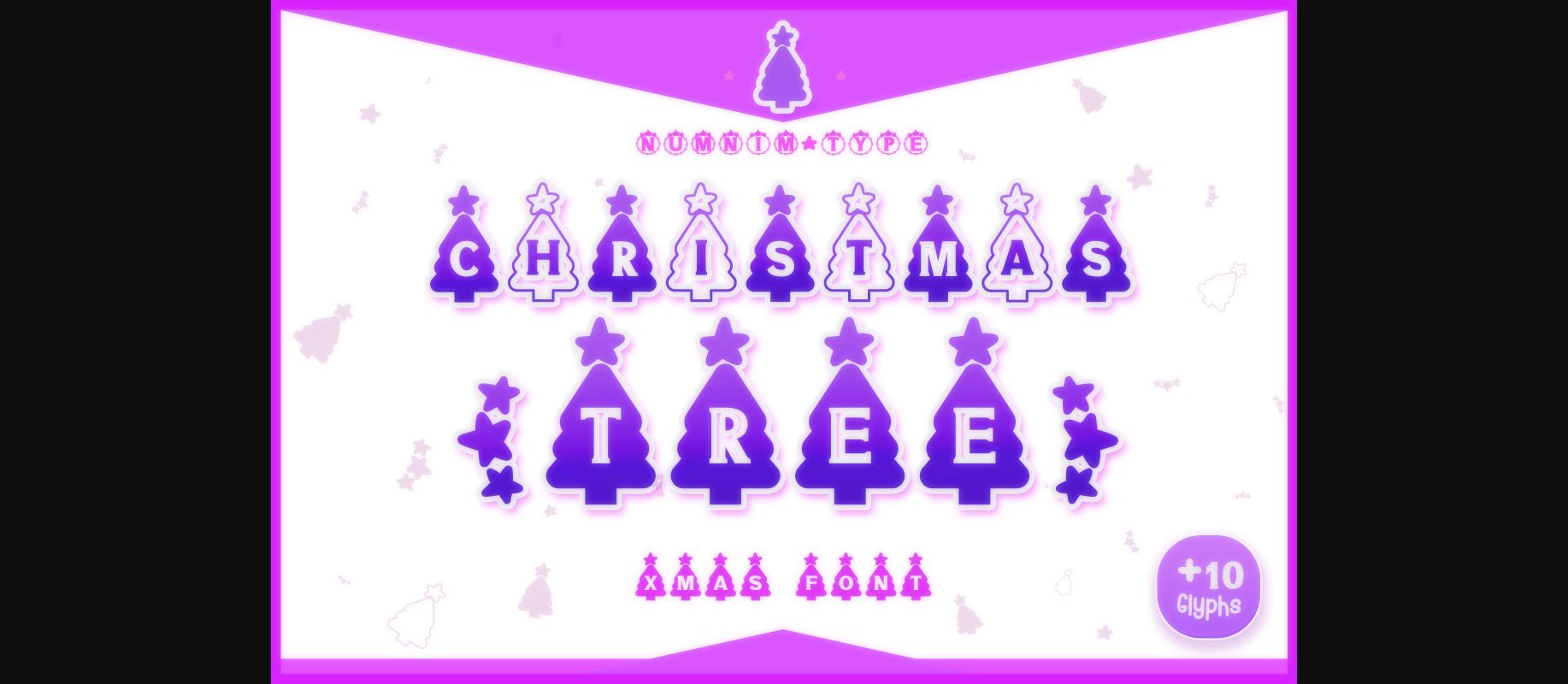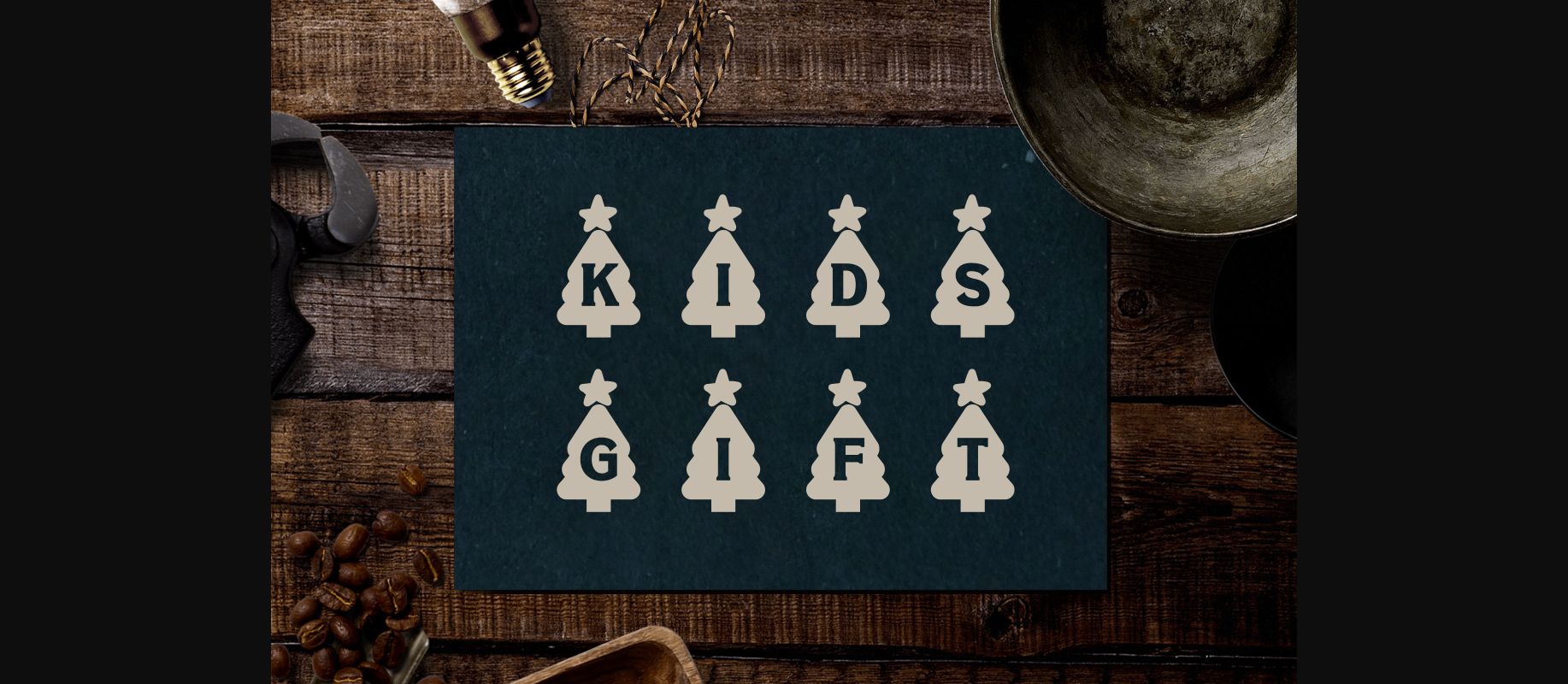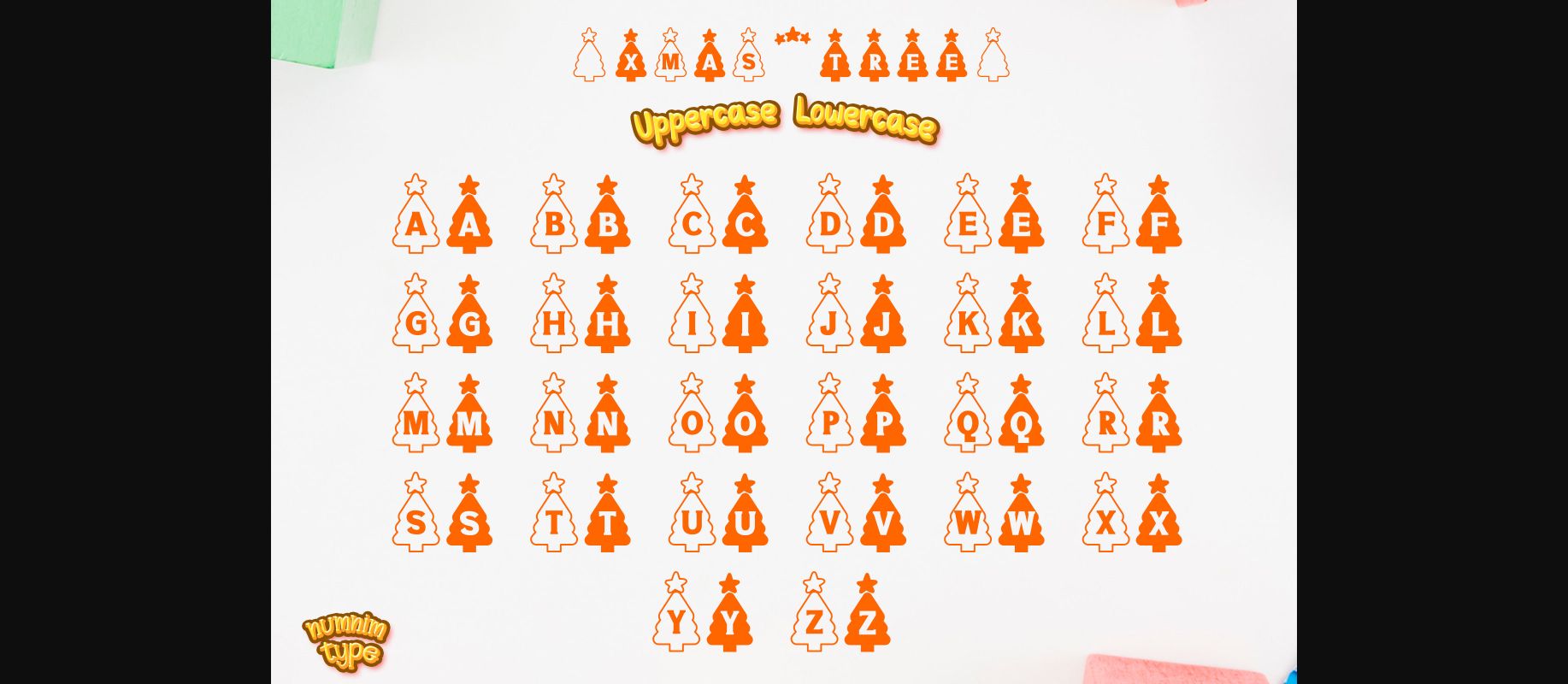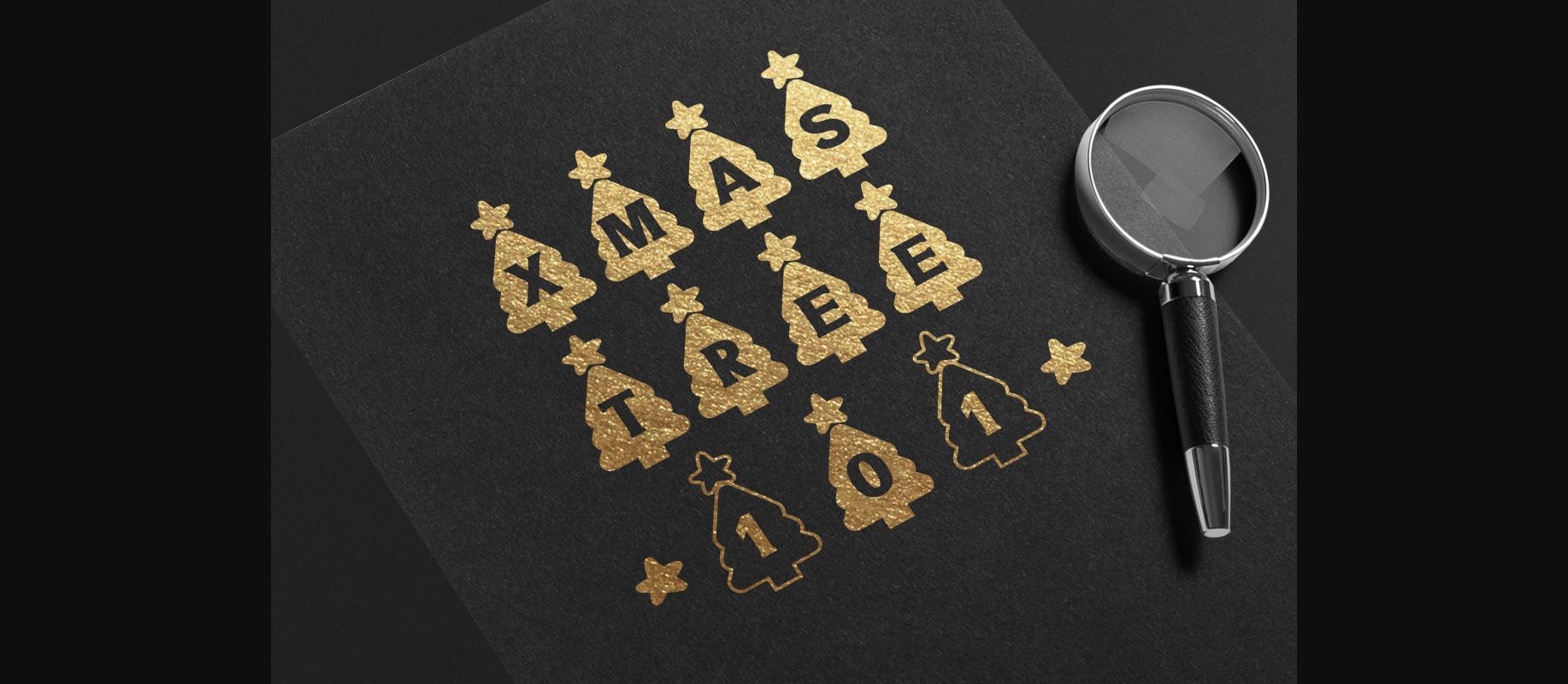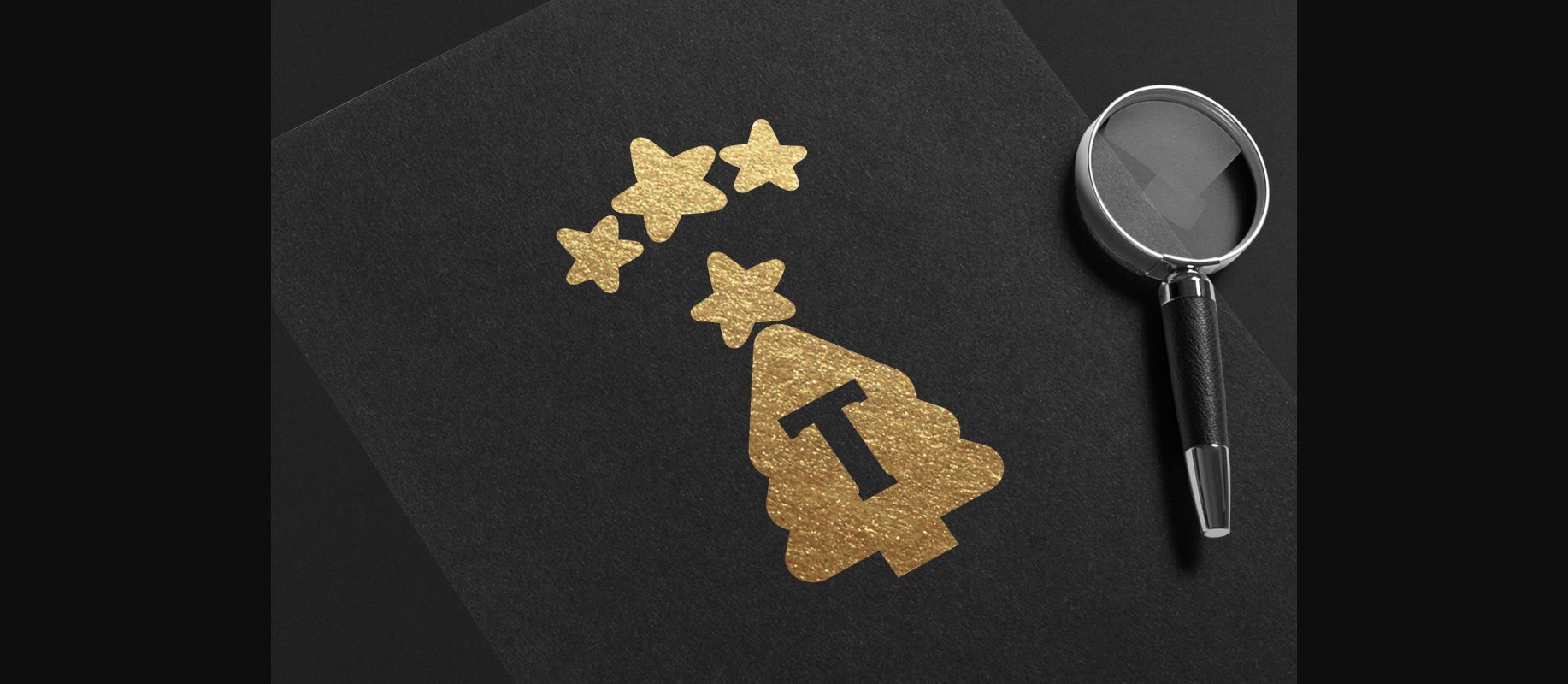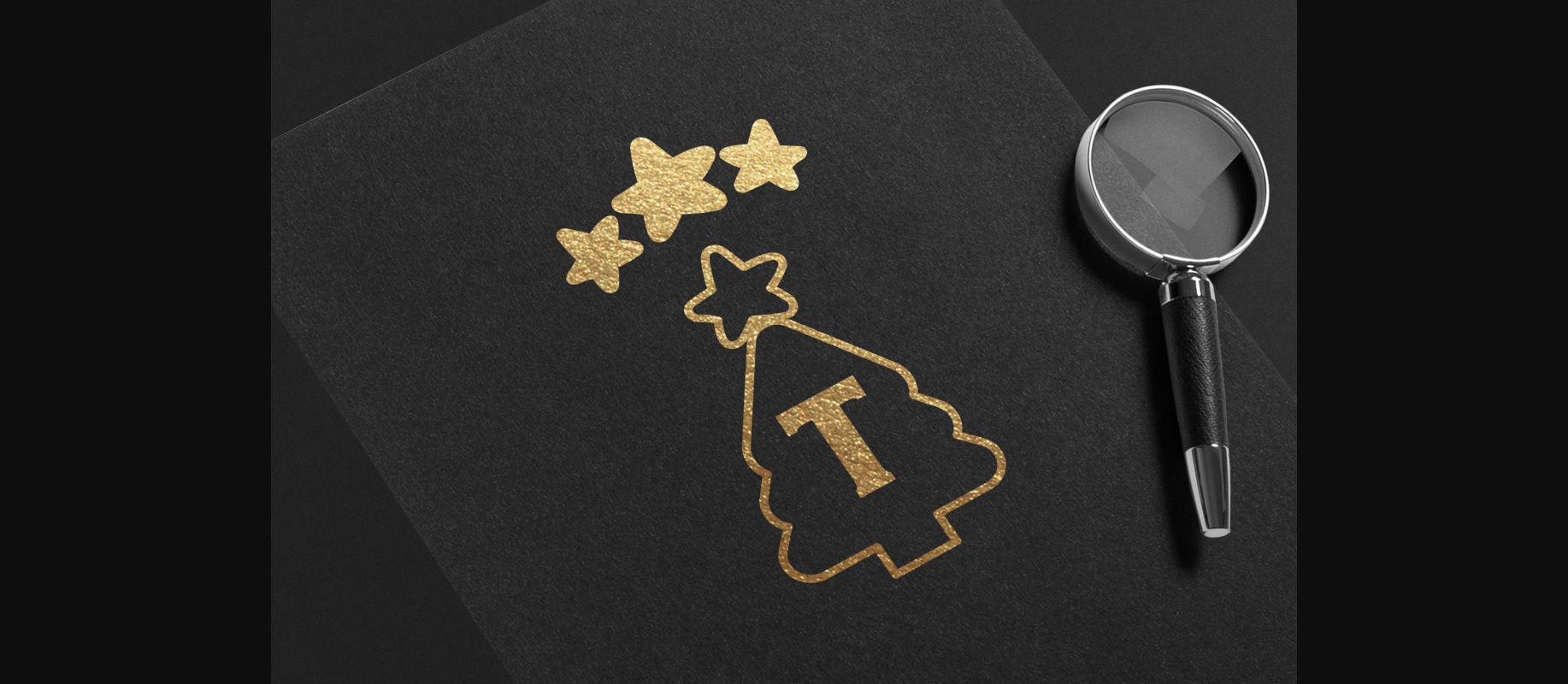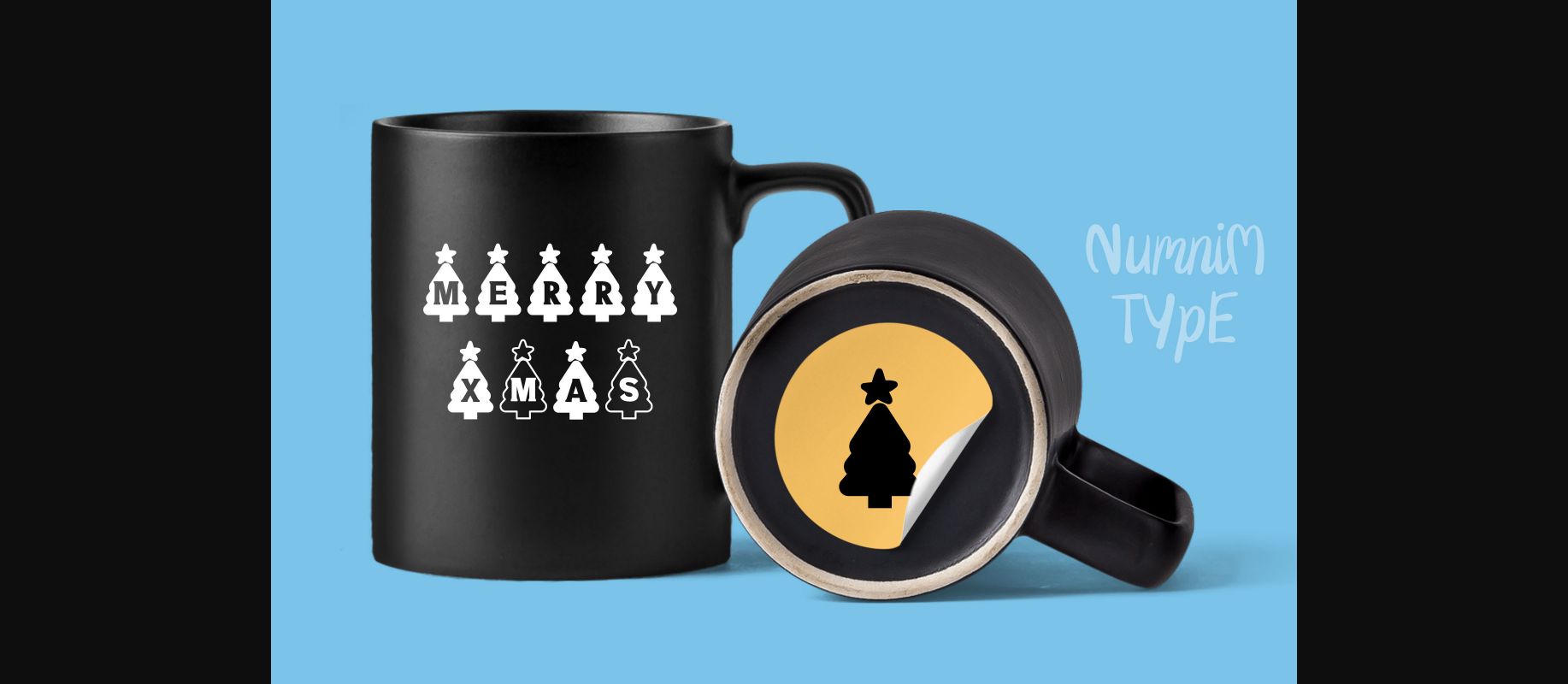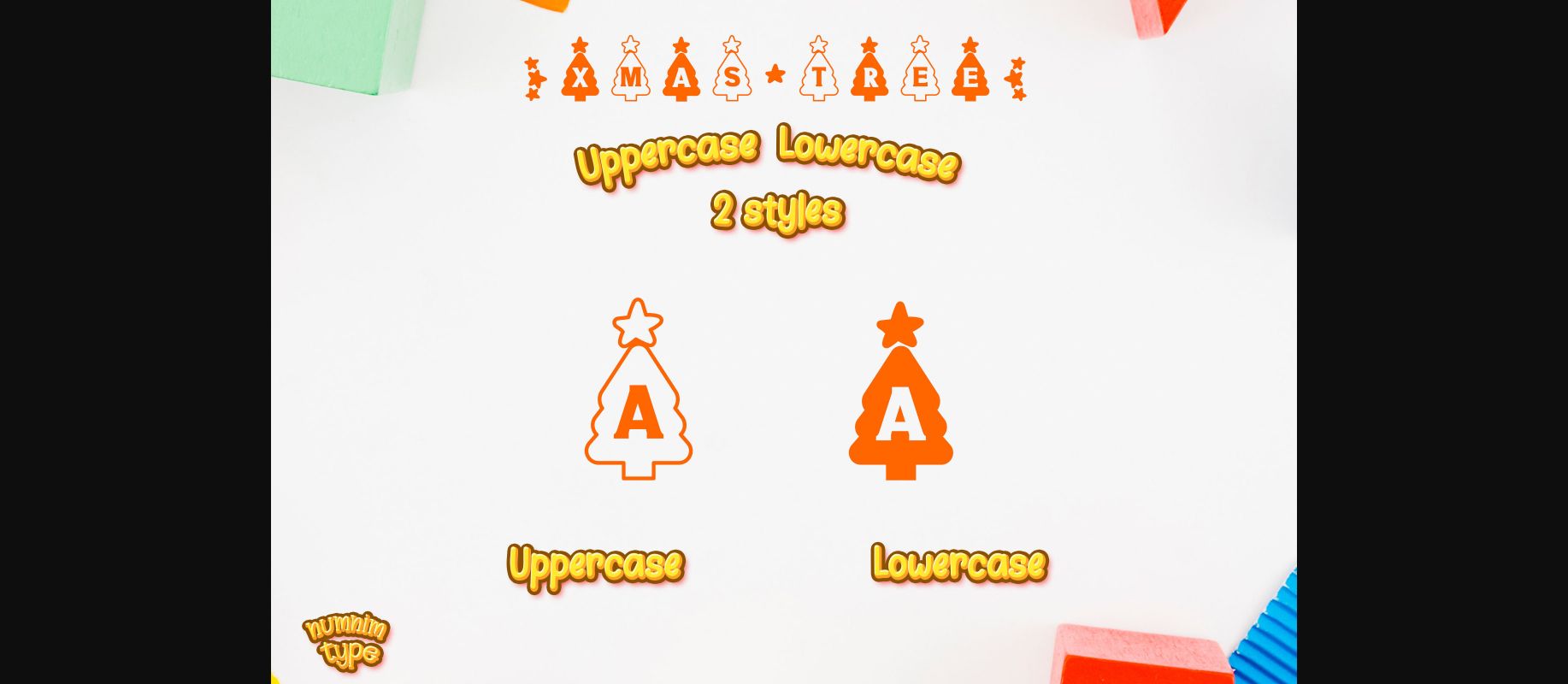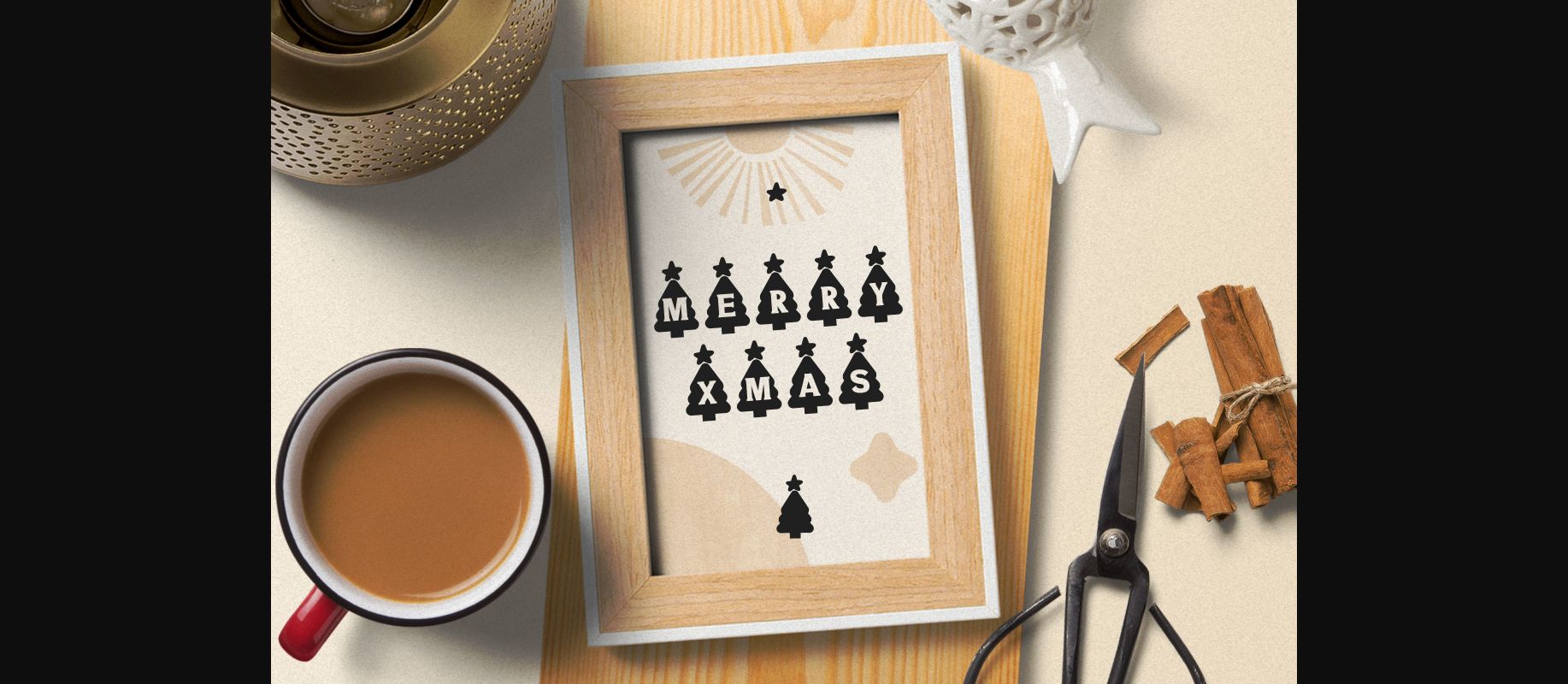
HomeDecorative FontsChristmas Tree Font Decorative Fonts Christmas Tree Font FacebookXPinterestWhatsApp 1 of 11 ... Christmas Tree Font Poster 2... Christmas Tree Font Poster 3... Christmas Tree Font Poster 4... Christmas Tree Font Poster 5... Christmas Tree Font Poster 6... Christmas Tree Font Poster 7... Christmas Tree Font Poster 8... Christmas Tree Font Poster 9... Christmas Tree Font Poster 10... Christmas Tree Font Poster 11... About Christmas Tree Font Christmas Tree is festive and joyful decorative font. It is ideal for writing holiday wishes, letters, wedding invitations or any other design ideas. DOWNLOAD NOW People also explored Harith Script Font Nagatha Christie Font Love Story Font Pastela Font Wildboard Font Paradisy Font Humsterr Font Baby Signature Font Handwritten Font Bundle Vol 2 275 0 TagsChristmas Tree Font Previous articleTulip FontNext articleThe Mummy Font LEAVE A REPLY Cancel reply Comment: Please enter your comment! Name:* Please enter your name here Email:* You have entered an incorrect email address! Please enter your email address here Website: Save my name, email, and website in this browser for the next time I comment. Personal Use Free Evensong Hollow Personal Use Free Read more about this font Braindly Personal Use Free Read more about this font Edo SZ Personal Use Free Read more about this font Old Linoleum Personal Use Free Read more about this font BLOG Using Fonts in Digital Marketing: Tips to Strengthen Your Brand Identity In the realm of digital marketing, every visual element plays a crucial role in shaping a brand's identity, and fonts are no exception. The... Transform Your Website: Elevate Your Typography with 7 Best Web Font Generators The 10 Best Handwriting Fonts to Add Personality to Your Designs Elegant Wedding Invitation Fonts – Handwritten & Script Fonts